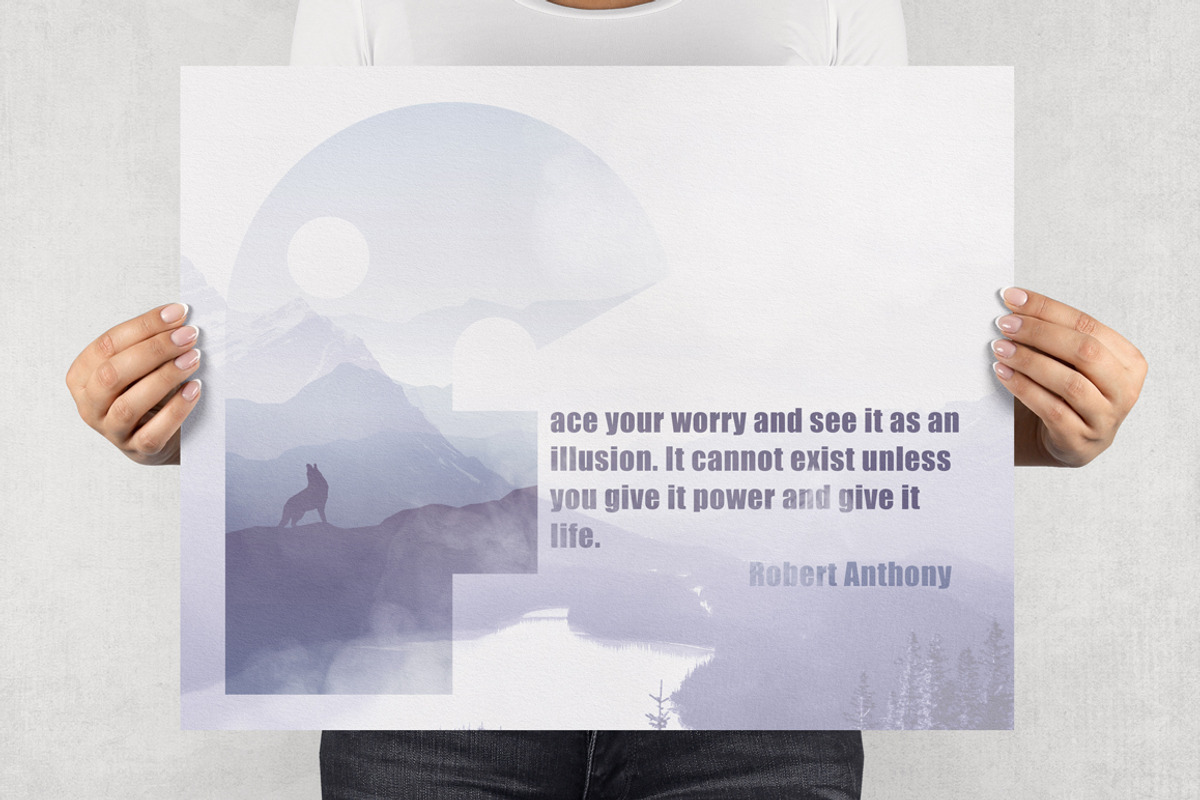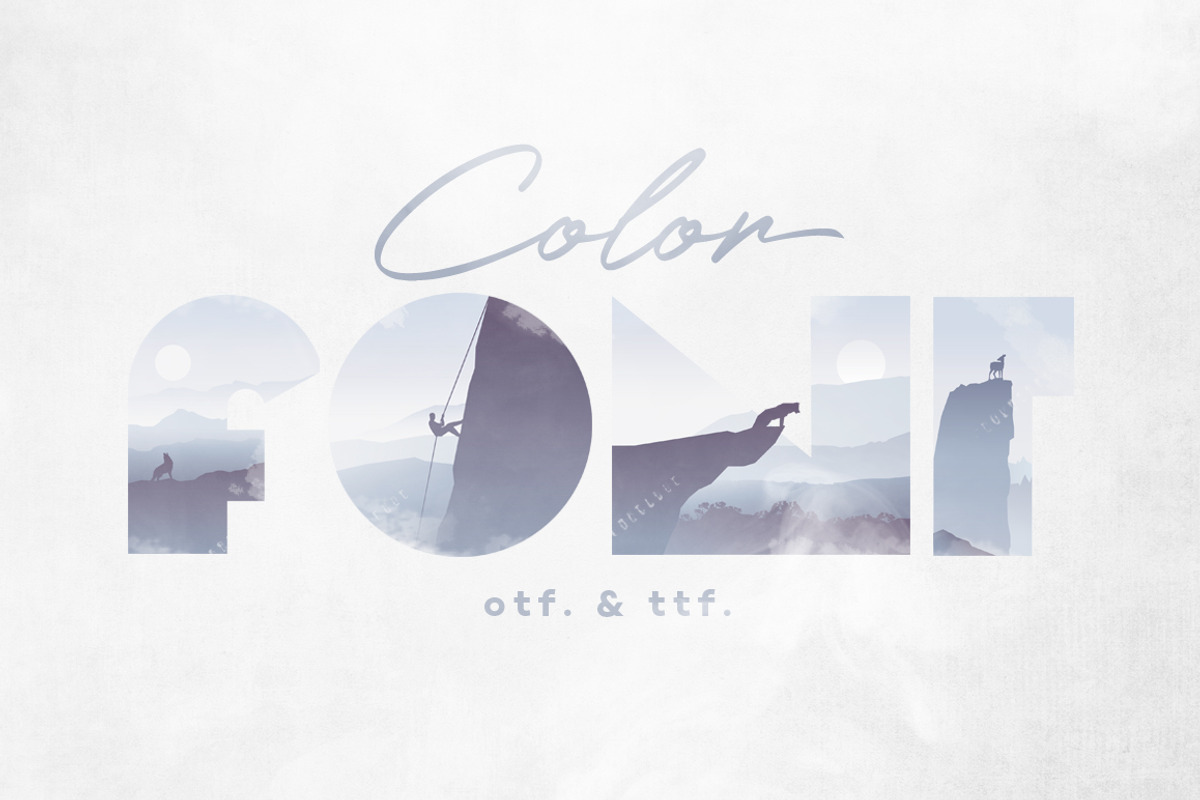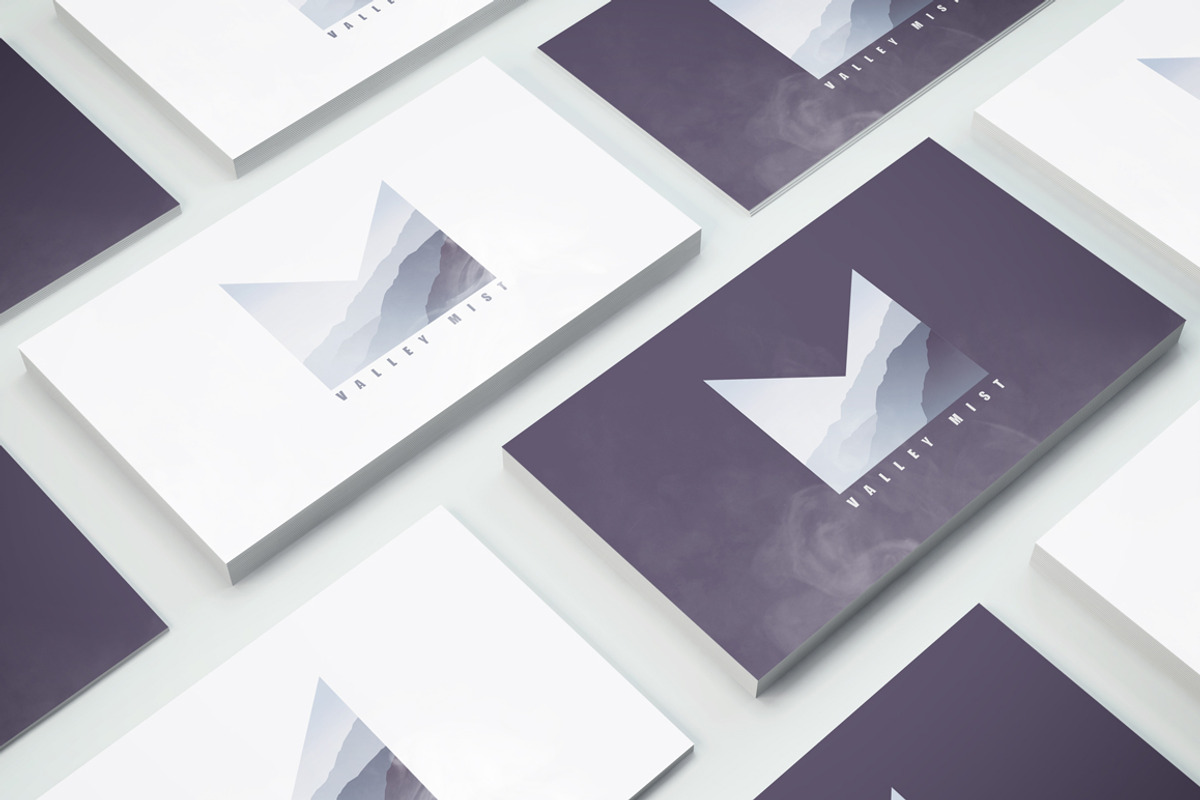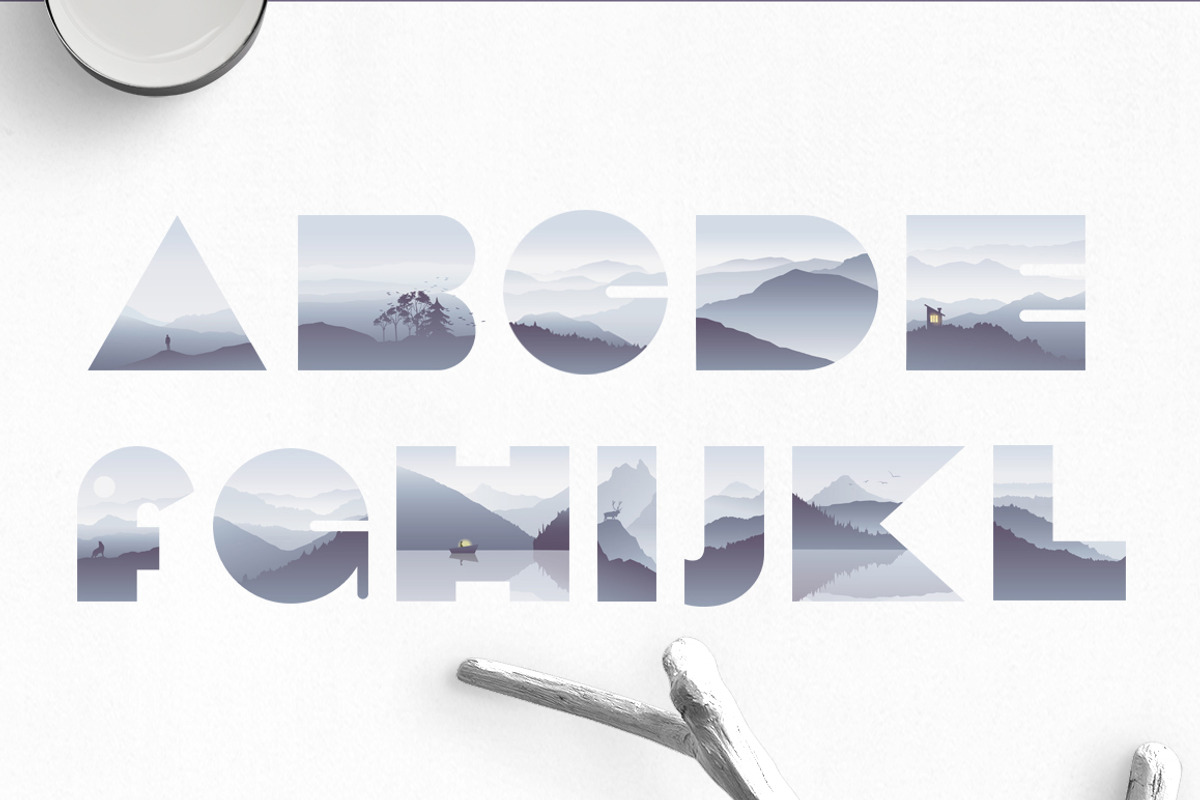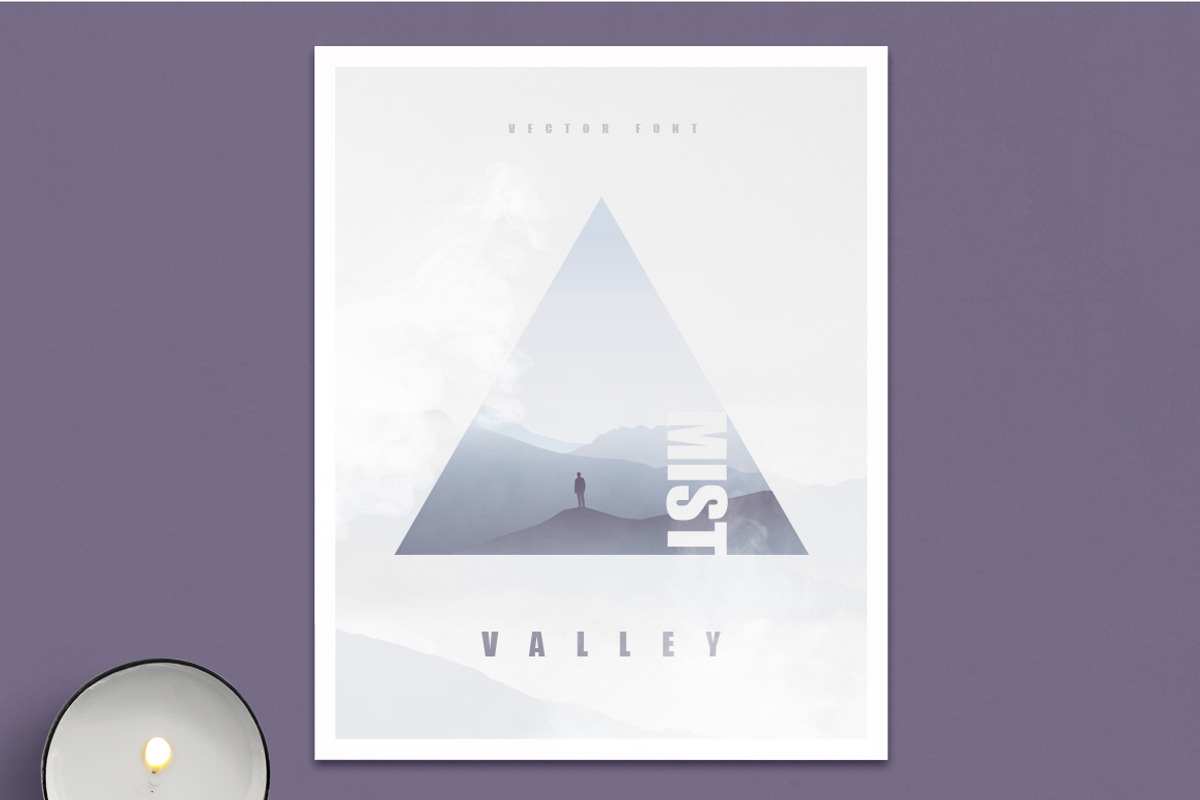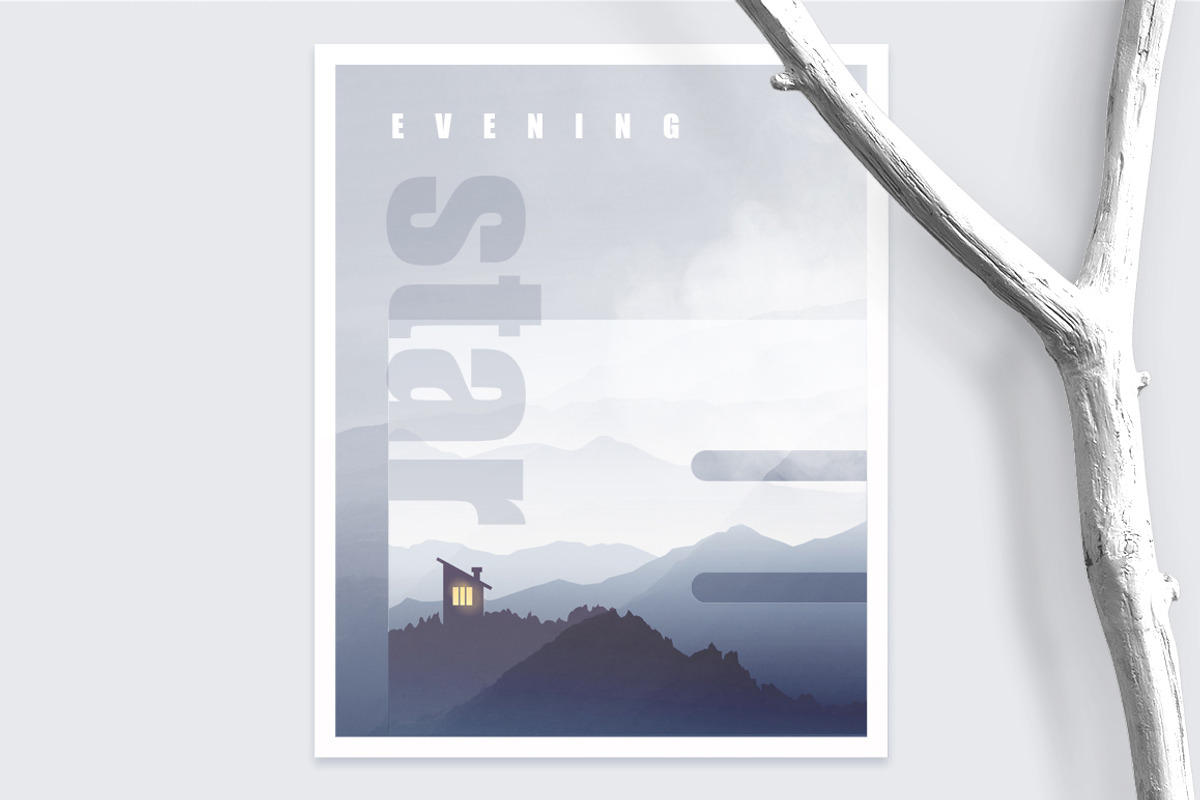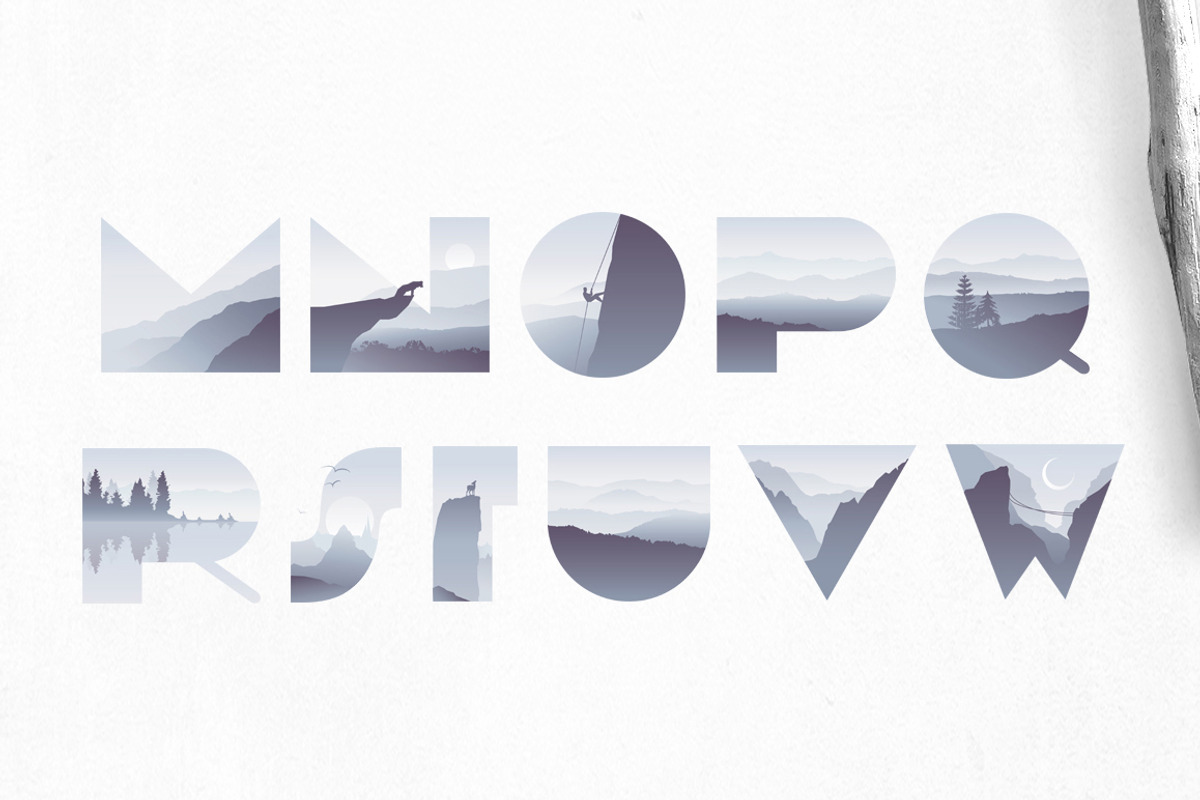
Valley Mist - SVG Color Font
Valley Mist is now a Color Font! You are now able to install and use this beautiful font just as you see it, in full color! This is still rather new so right now you will be able to use it if you have Illustrator CC, and Photoshop CC.
VALLEY MIST vector font
Beautiful modern font that uses negative space to create a double exposure effect that will work awesome in combination with photography. Misty mountains, forests, lakes, woodland creatures and desaturated ultraviolet color hue brings out the mystic mood. Check out the screenshots to see some of the possible use cases and to get inspired!